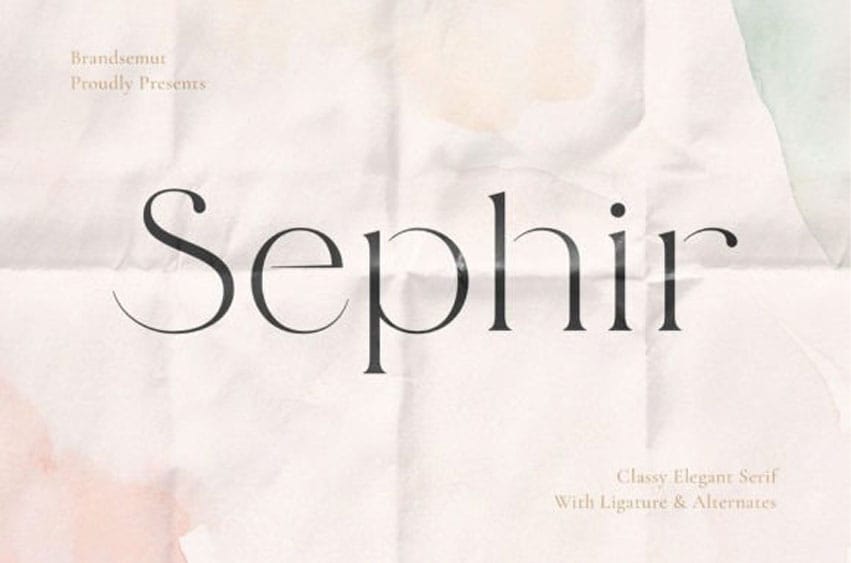
Sephir Font is a modern, elegant, and classy serif font, best used as a display for headings, logos, branding, magazines, product packaging, and invitations.
Sephir comes with clean lines and smooth curves, giving any project an extra touch of class.